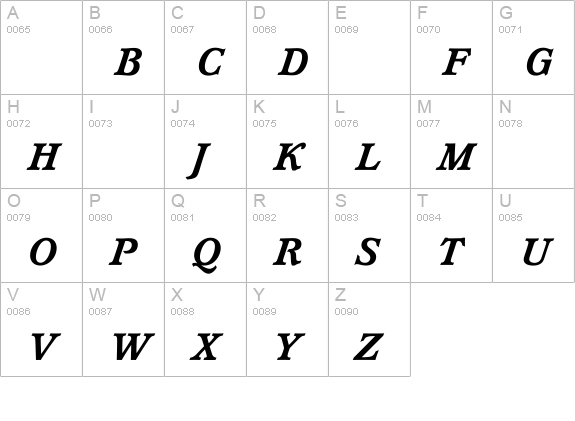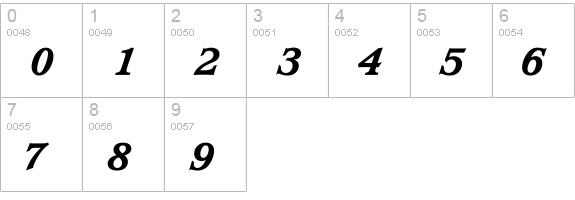
WaverlyExtraBoldItalic Font Details
WaverlyExtraBoldItalic is a stunning and captivating font that effortlessly combines elegance and boldness. Its sleek and dynamic curves exude a sense of confidence and sophistication, making it the perfect choice for any design project that requires a touch of modernity and style. With its unique italicized form, WaverlyExtraBoldItalic adds a sense of movement and fluidity to your text, adding a subtle yet impactful visual element that is sure to capture attention. Whether used for headlines, logos, or body text, this font delivers a powerful and unforgettable visual impact. The versatility of WaverlyExtraBoldItalic is another aspect that sets it apart. It seamlessly adapts to various design styles and contexts, effortlessly complementing both minimalist and intricate layouts. Its bold weight ensures that your message is delivered with authority, while the italicized slant adds a touch of elegance and sophistication. One of the most enticing features of WaverlyExtraBoldItalic is that it is available completely free of charge. You can easily download this font at FontsMarket.com, allowing you to enhance your design projects without any additional cost. This accessibility ensures that designers, regardless of their budget, can benefit from the exceptional qualities that WaverlyExtraBoldItalic has to offer. So why wait? Elevate your designs with WaverlyExtraBoldItalic and let its unique blend of boldness and elegance captivate your audience. Download it for free at FontsMarket.com and unlock a world of endless creative possibilities.